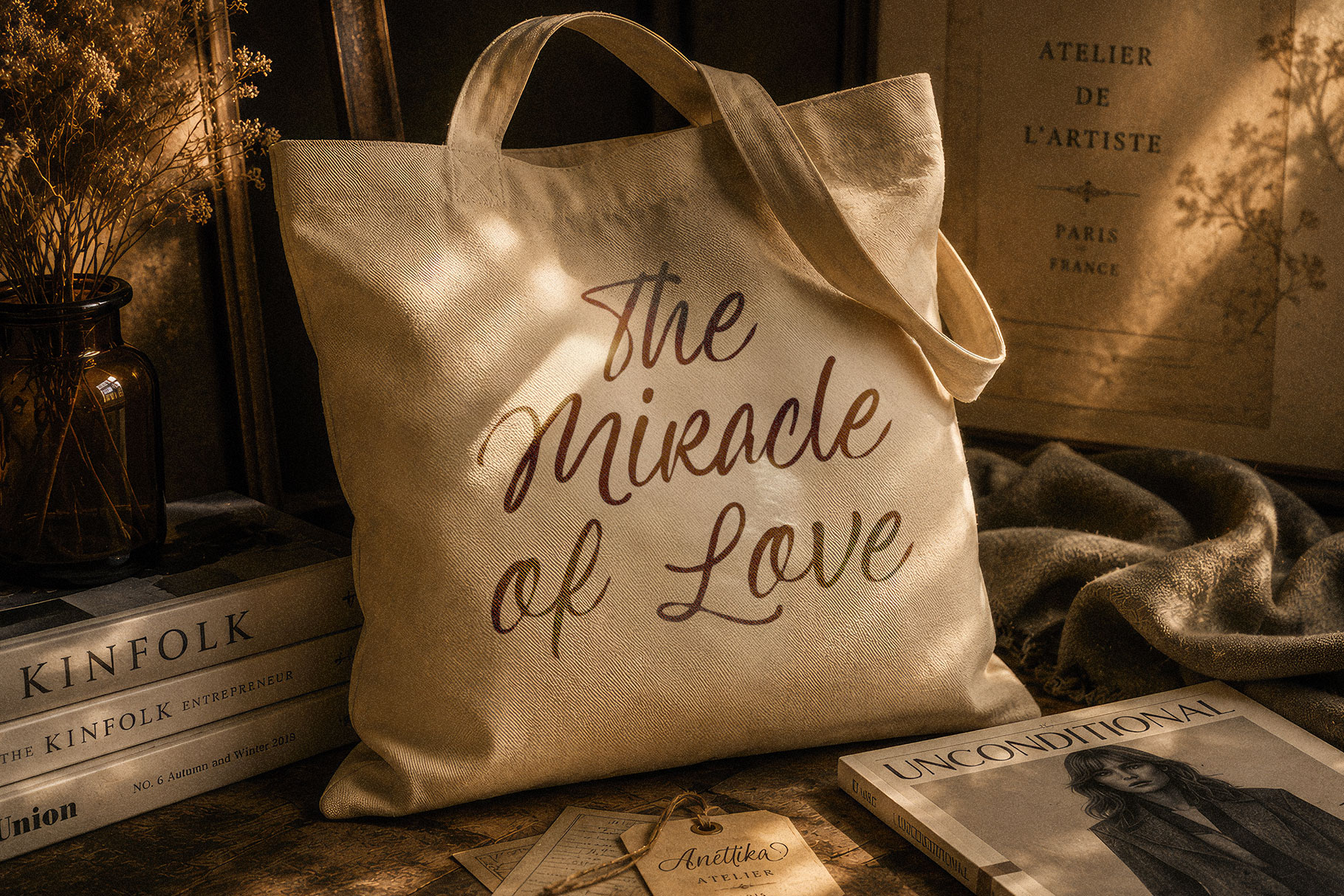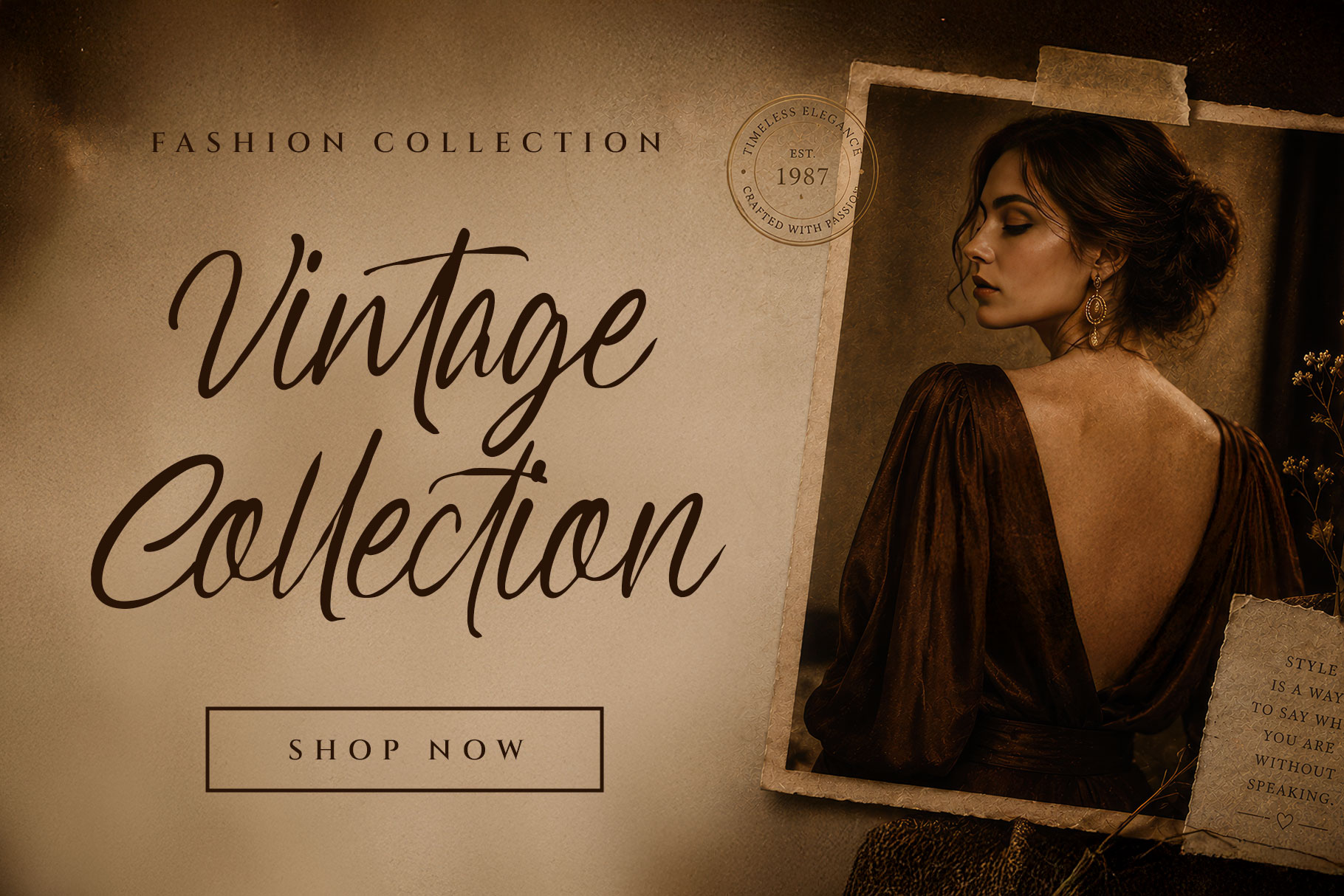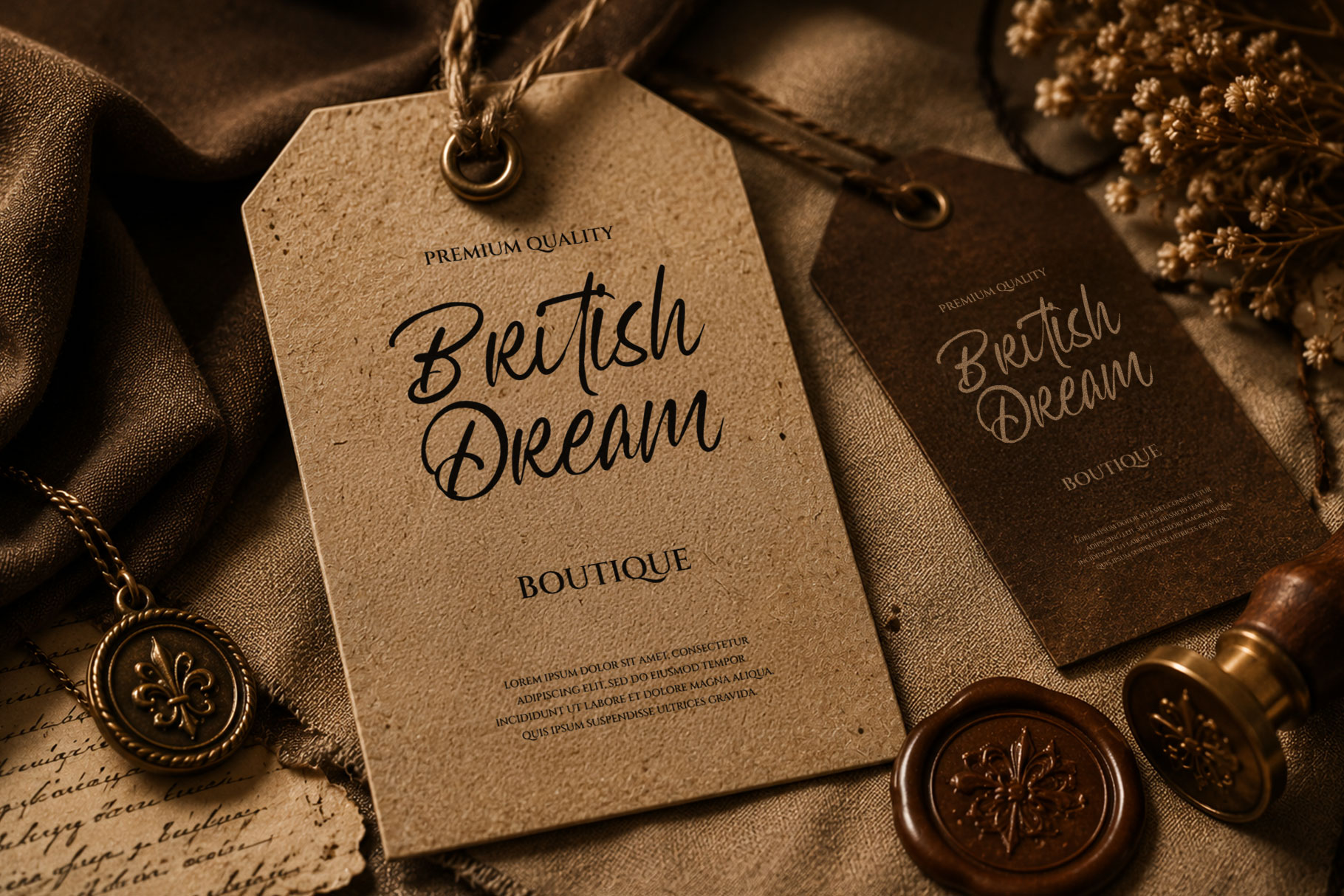
Ametin
Ametin a premium heritage font inspired script font campaign built around nostalgic craftsmanship, vintage luxury, and cinematic editorial styling. Ametin is a perfectly choice for any creative endeavor, creating, modern, lifestyle design such as logotype, title, cover, branding, invitations, wedding designs, display and magazine, social media posts, advertisements, printed quotes, product packaging, corporate brand, product designs, labels, photography, watermarks, special events and any other project with vintage touch.
Ametin Heritage Script Font